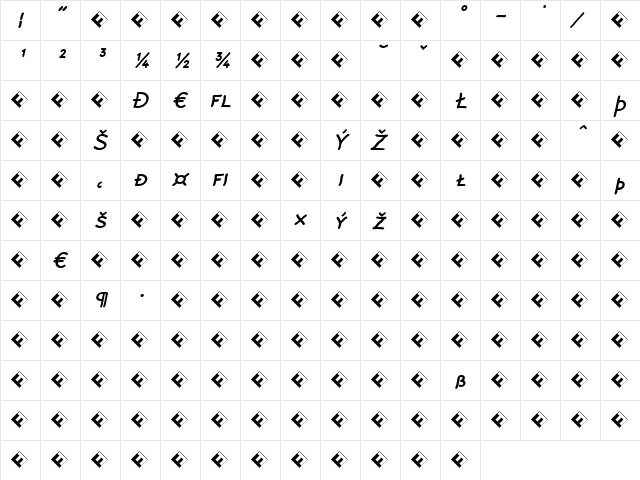
Rattlescript-MediumObliCapsExp Regular Font Preview
Rattlescript-MediumObliCapsExp Regular
Rattlescript-MediumObliCapsExp Regular Font Details
| Foundry | Marten Thavenius, published by Fontshop International for the FontFont library |
Design Context for Rattlescript-MediumObliCapsExp Typeface
Rattlescript-MediumObliCapsExp flows with the natural rhythm of handwritten lettering, making it ideal for designs that call for warmth and personal expression.